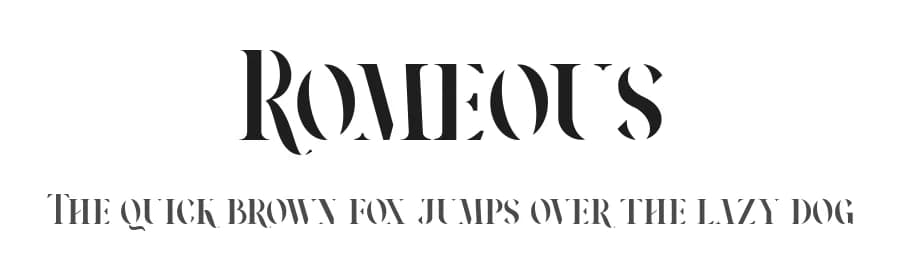
About Romeous Font
RONEOUS Font Β elegant high contrast sans serif. RONEOUS Serif was designed with a high contrast of the strokes and cut the thinner line to get the optical effect but still keep the legibility.
Romeous Specifications
Romeous Font is a versatile serif font that works for both headings and body text. Pair it with a contrasting sans-serif or slab serif font to add visual interest and a clear distinction between titles and body copy.
Romeous Font